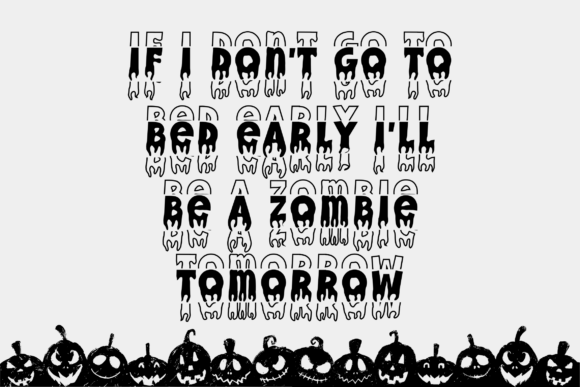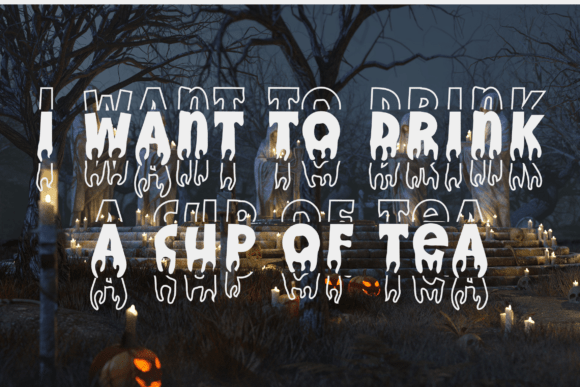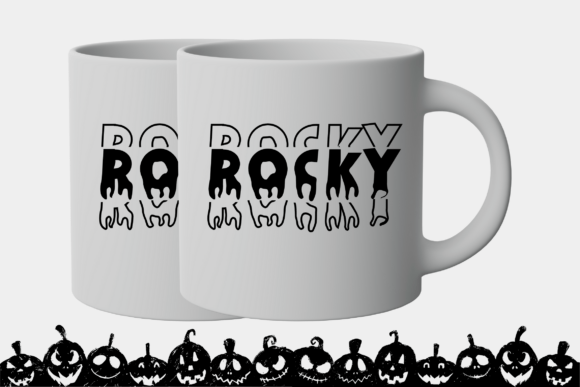
Introduction to Handwriting Blood Stacked Font
Immerse your design in a realm of haunting allure with the Handwriting Blood Stacked Font.
Meshing the untouched allure of handwritten ink with the unsettling charm of horror, this typeface stems from a foundation of stark chilling aesthetics With its uneven, layered letters mirroring the fear-inducing drip of blood, it offers a flawless fit for Halloween endeavors, terrifying movie captions, eerily inviting cards, haunted abode banners, or even unique clothing prints that break the mold.
Key Features of Handwriting Blood Stacked Font